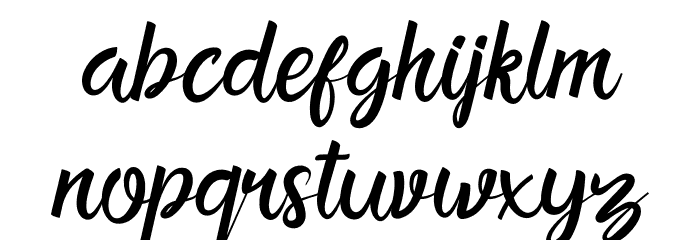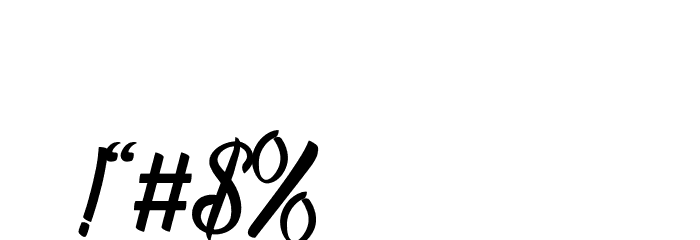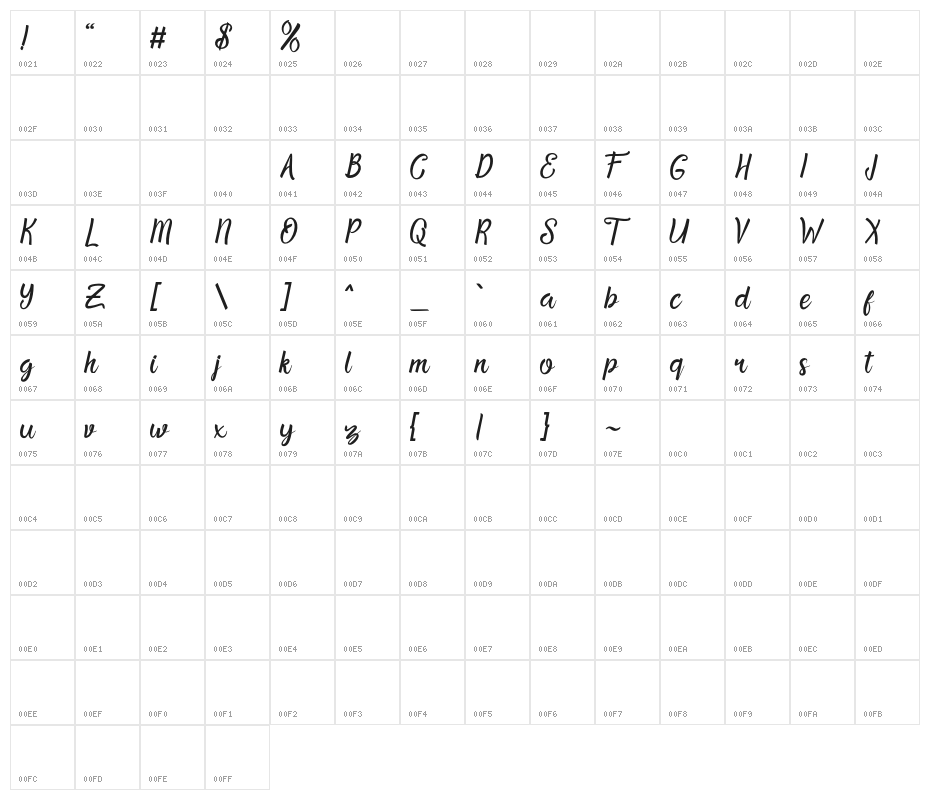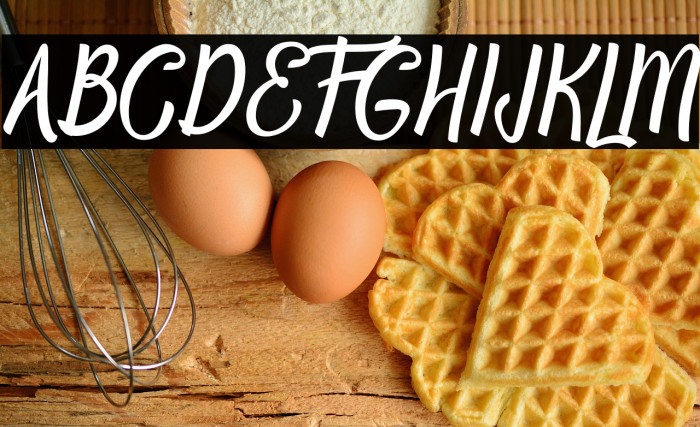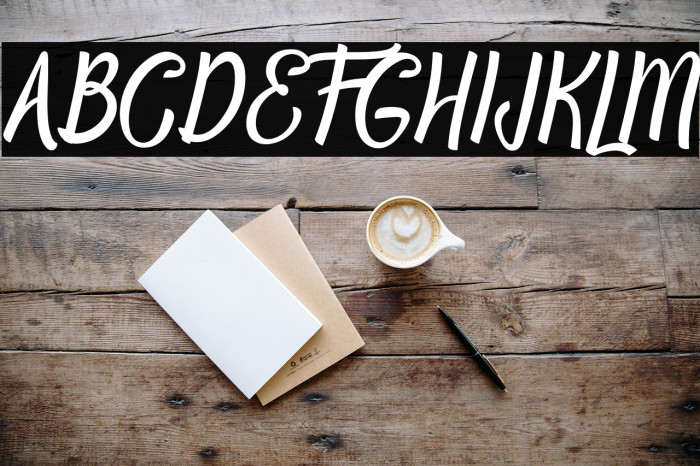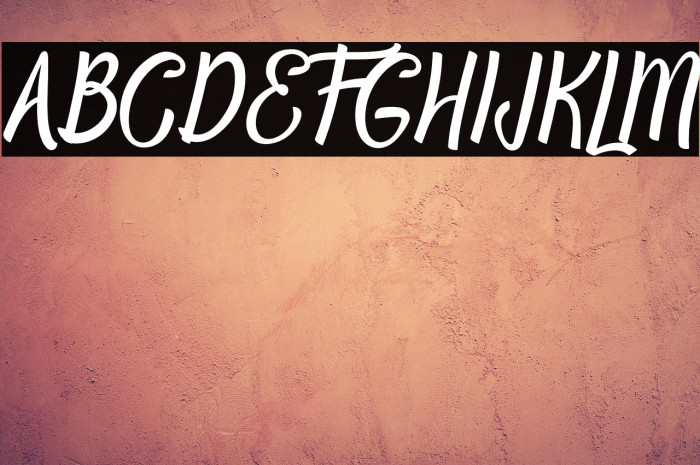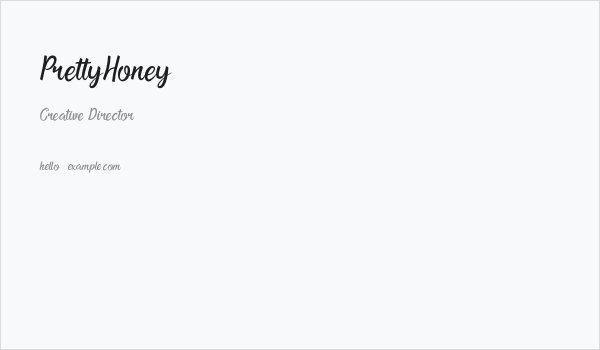
PrettyHoney Font
This font exudes a playful and energetic vibe with its bold, flowing script style. The characters are elegantly curved, giving a sense of movement and fluidity. Each letter is distinct yet harmonizes well with the others, creating a cohesive look. The uppercase letters are particularly striking, with exaggerated loops and swirls that add a touch of whimsy. The lowercase letters maintain the same lively spirit, with a slightly more subdued flair. The special characters are equally expressive, fitting seamlessly into the overall design. This font is perfect for projects that require a personal, handwritten touch.
A bold, playful script font with flowing, energetic curves.
- Font: PrettyHoney
- Proposed Projects: Ideal for greeting cards, invitations, branding, and social media graphics.
- Category: Script
- Use Case: Logos, Headlines, Invitations